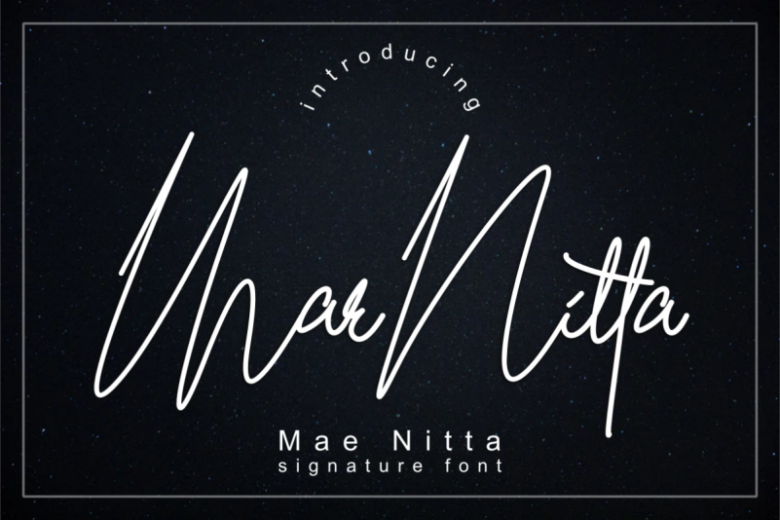
Mae Nitta Signature Font
Say hello to Mae Nitta Font. This is a feminine type Hanwritten font, every single letters have been carefully crafted to make your text looks beautiful. With modern script style this font will perfect for many different project. Mae Nitta Signature is a simple and stylish signature font . It is made for any designs with woman’s handwritten like – signature font. Feel free to play around with this font for your design project. With modern script style this font will perfect for many different project ex: photography, watermark, quotes, blog header, poster, wedding, branding, logo, fashion, apparel, letter, invitation, stationery, etc.